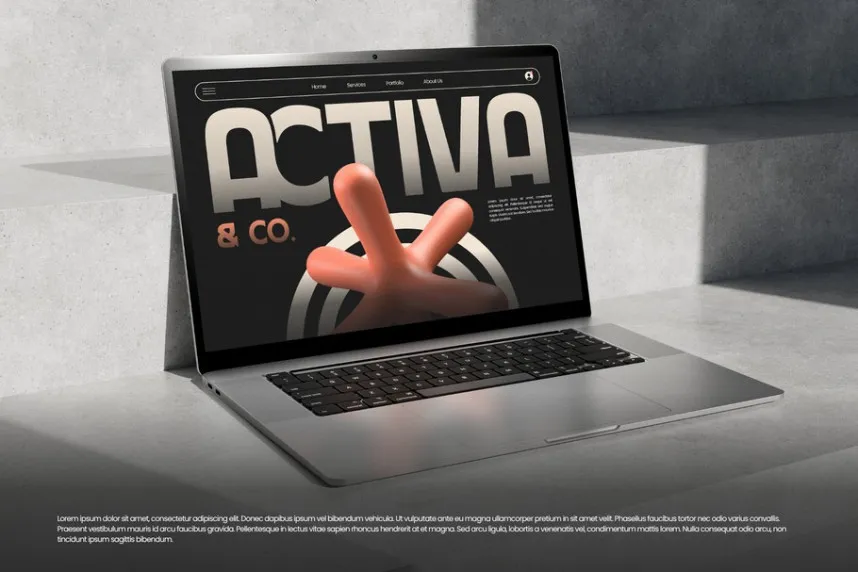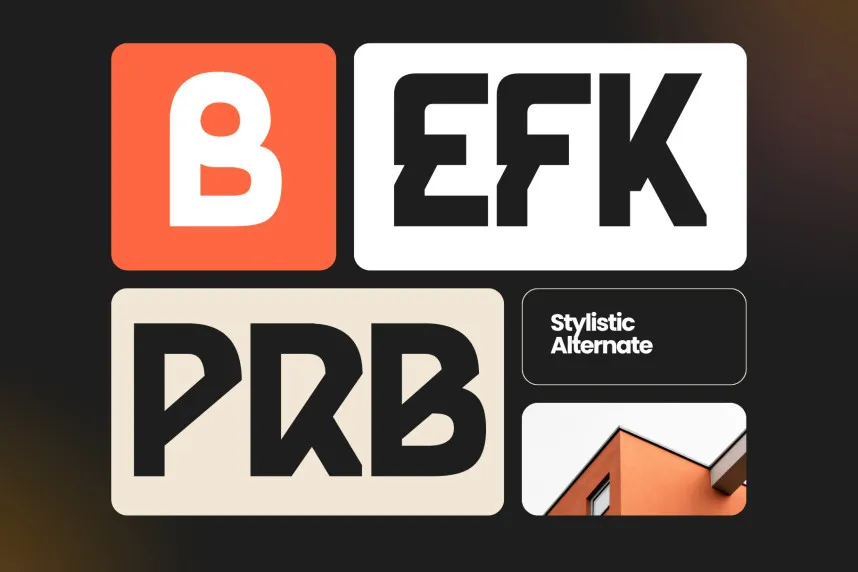
Orenza Bold Font is a commanding display typeface designed for attention-grabbing visuals. It’s powerful, solid, and professional, built for impactful headlines.
The font structure is bold and geometric, offering both strength and precision. It keeps readability intact while delivering a strong personality.
Orenza Bold is perfect for posters, billboards, and sports branding where you need clarity and power. It naturally draws the viewer’s eye.
Each letter looks balanced, carrying a tone of determination and authority. It’s ideal for brands that want to project confidence and leadership.
Orenza Bold Font Family
This typeface adapts well to modern layouts and digital interfaces. Its bold appearance makes text look clean yet forceful.
Type Strong Sans Serif
Usage Great for branding, sports titles, and bold statements
This typeface turns simple words into bold statements. It delivers visual weight, energy, and distinction, perfect for impactful modern design.